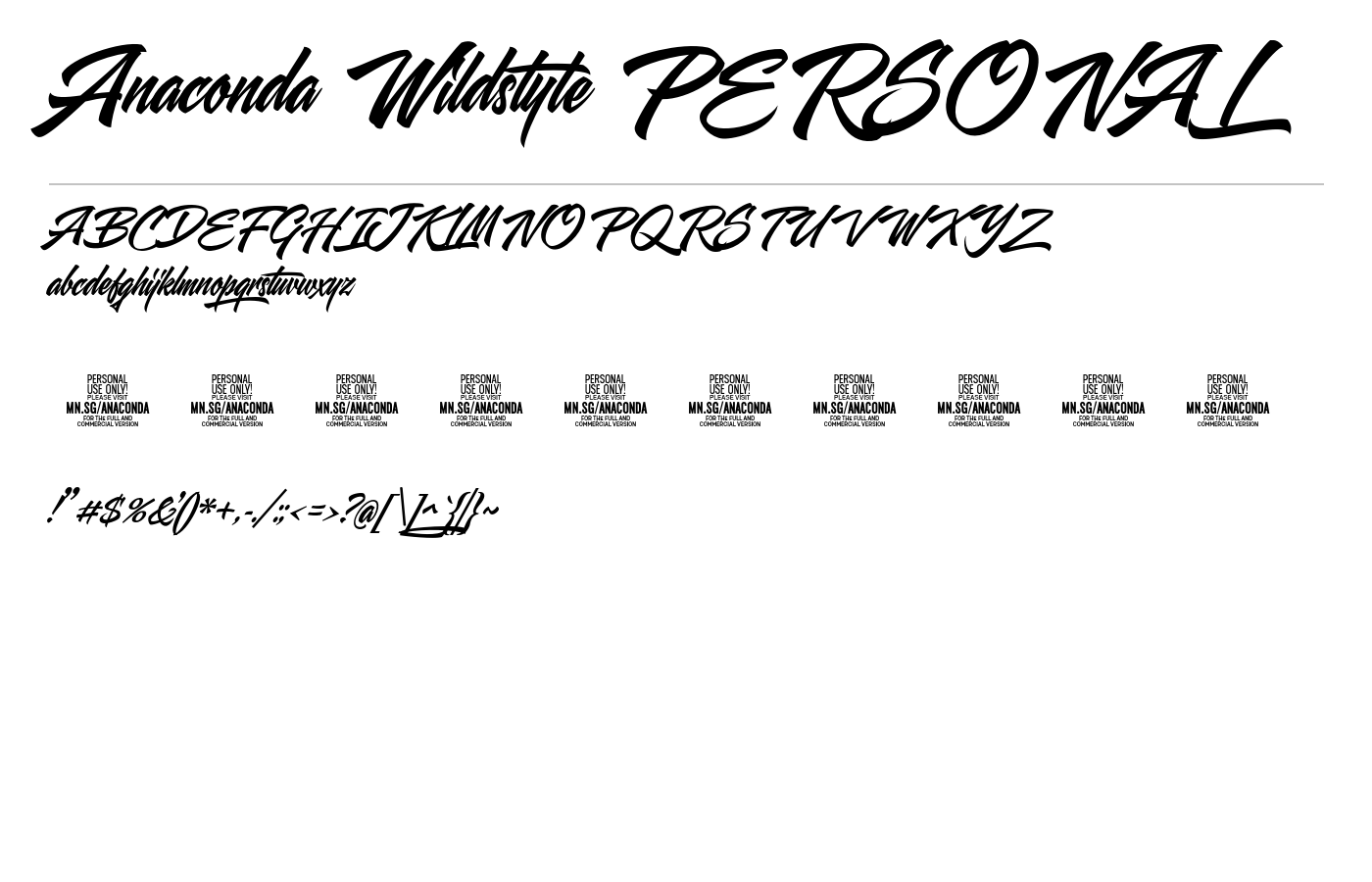
Anaconda Wildstyle PERSONAL is a dynamic script font characterized by its energetic, brush-like strokes and high contrast between thick and thin lines. Its bold, slightly condensed letterforms with elegant swashes and a lively, hand-painted feel make it perfect for bold, eye-catching designs that need a sense of creativity and motion. Ideal for logos, posters, and headlines, this font adds a stylish, urban edge to any project seeking a modern, energetic vibe.
Anaconda Wildstyle PERSONAL Font
About Anaconda Wildstyle PERSONAL Font